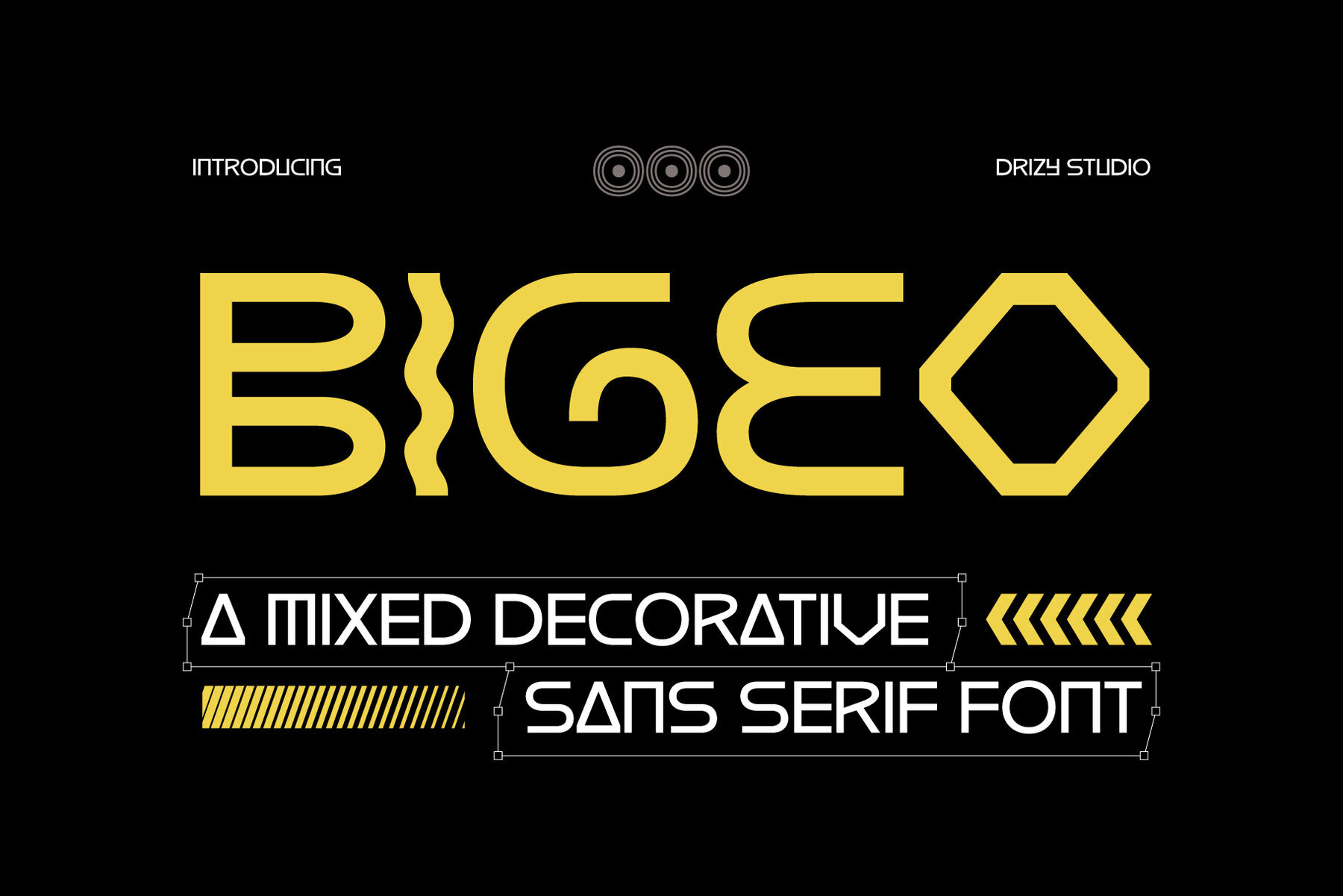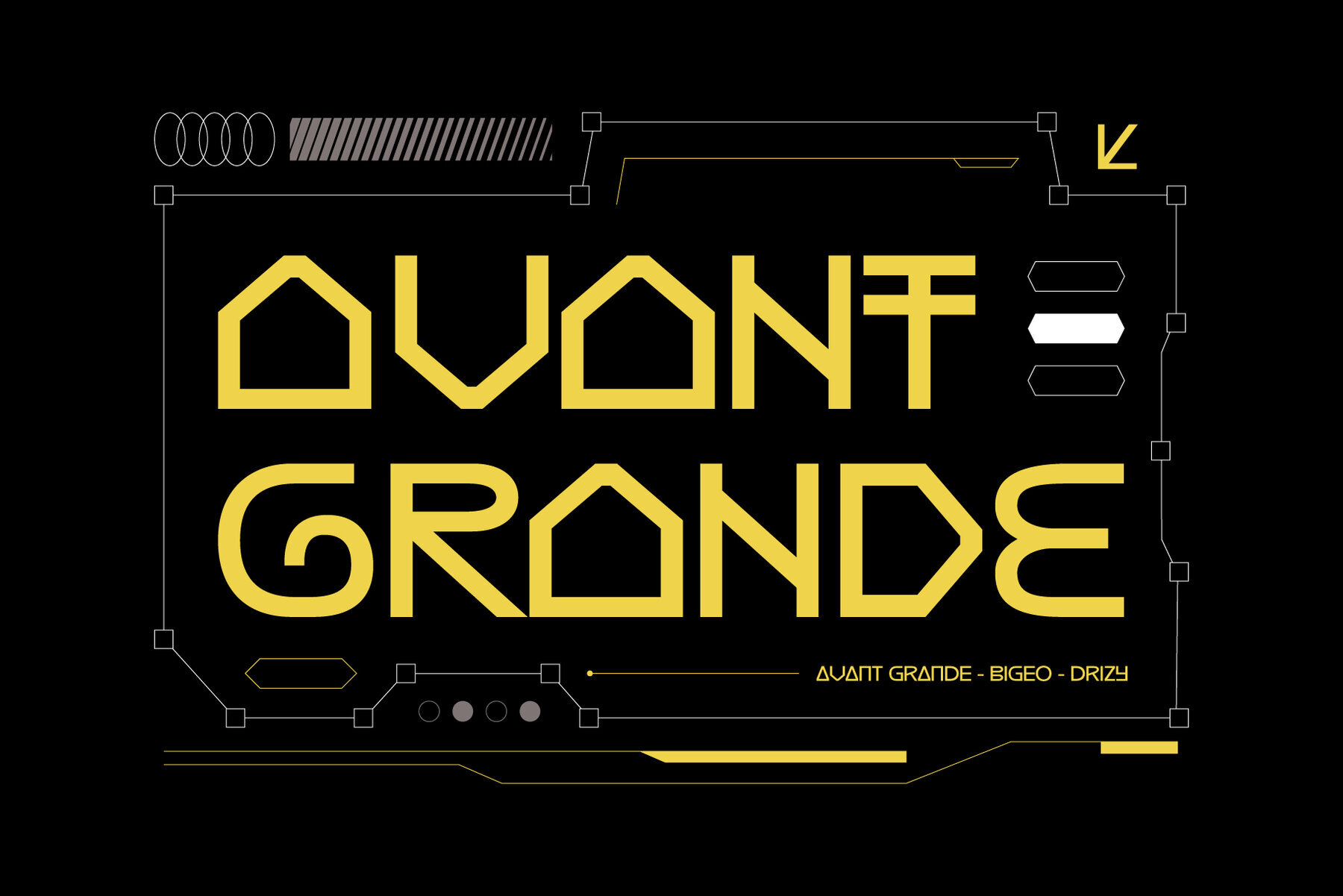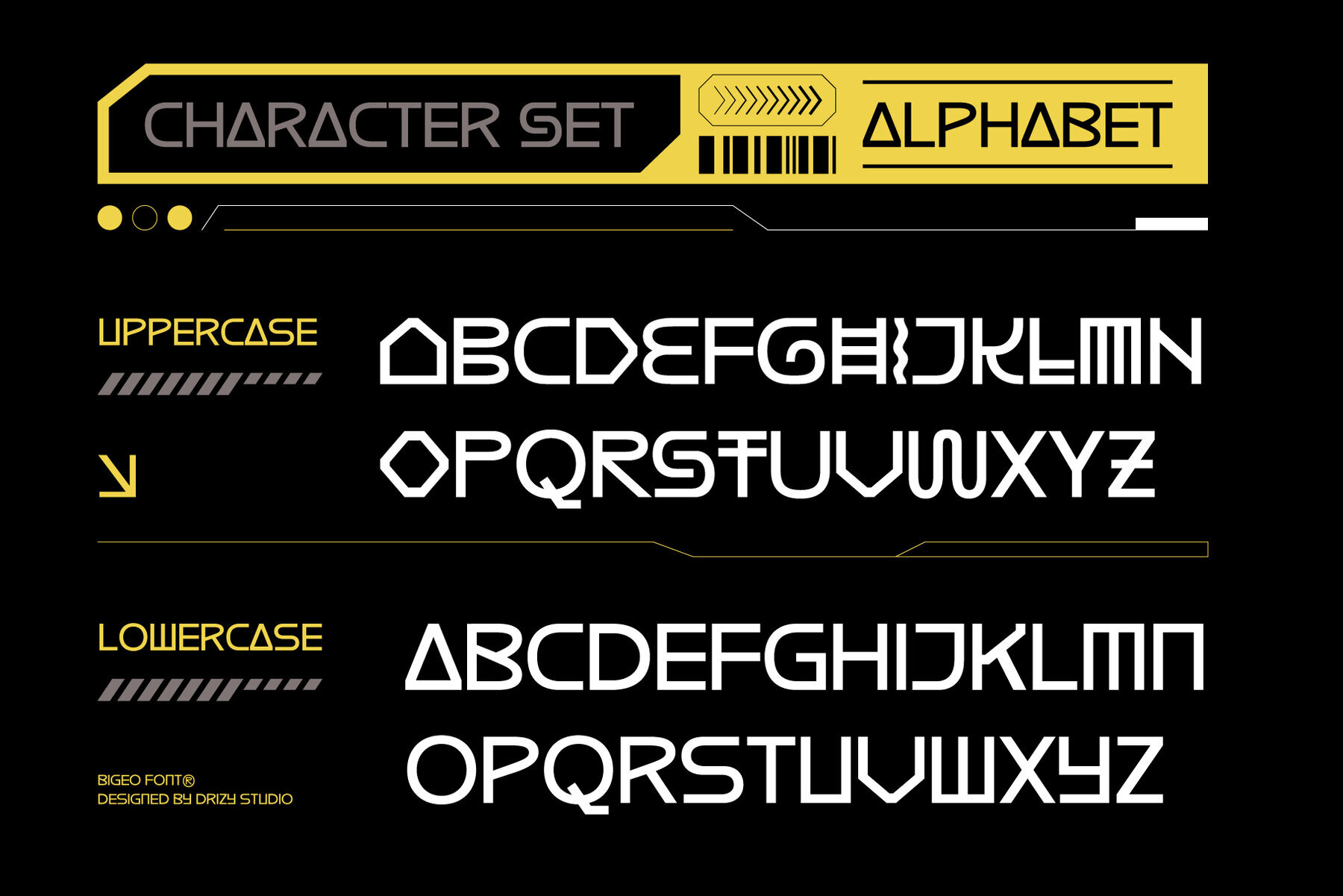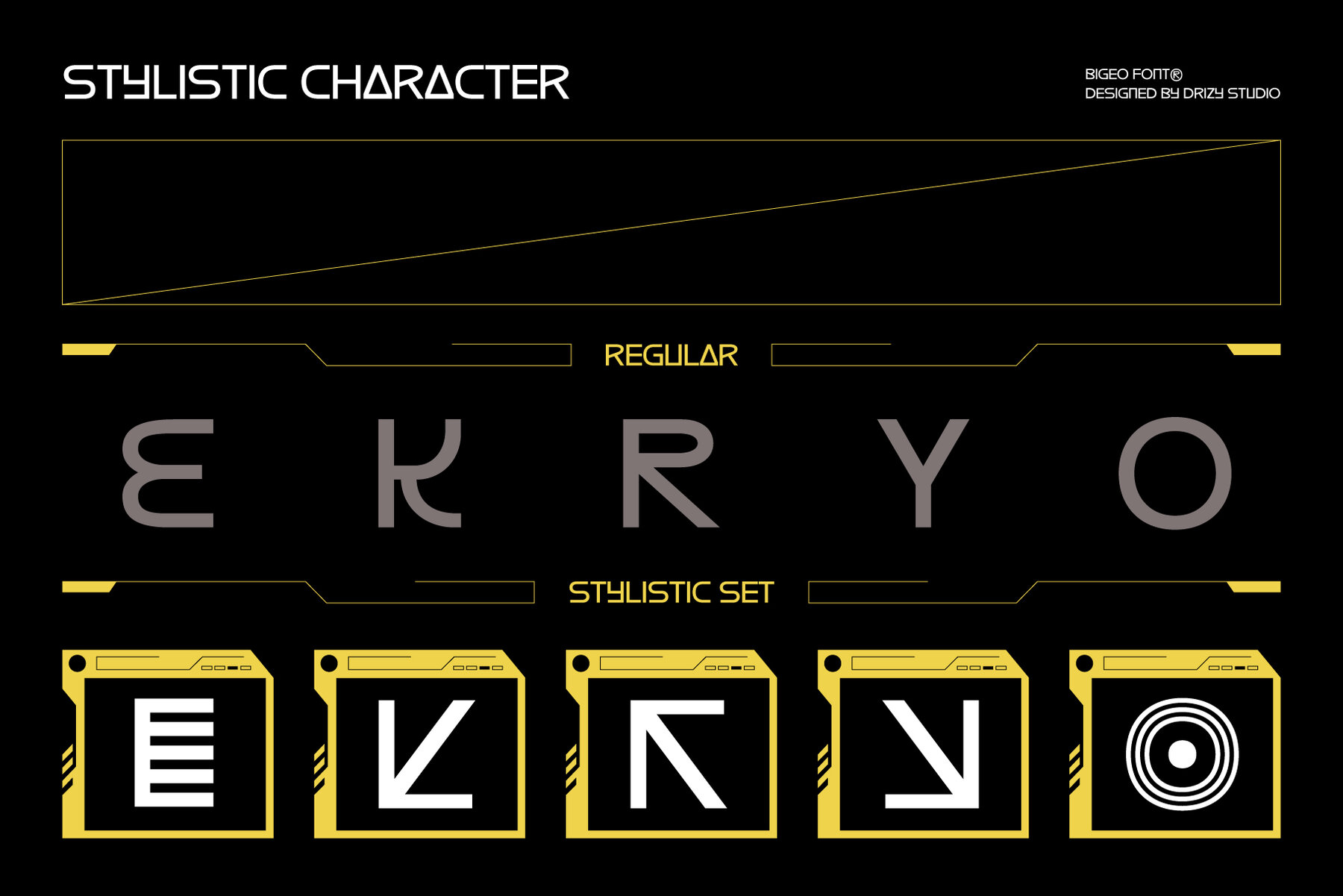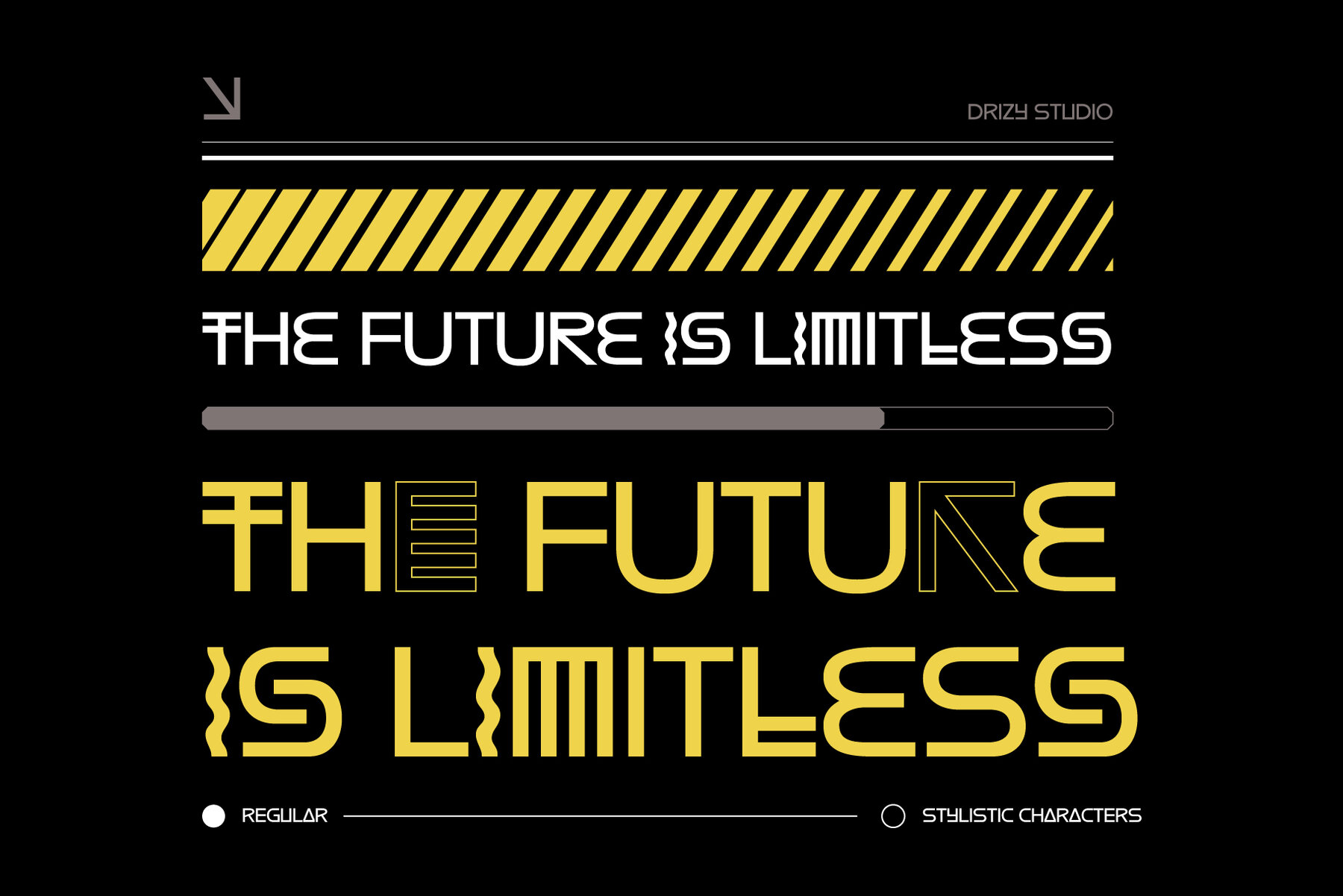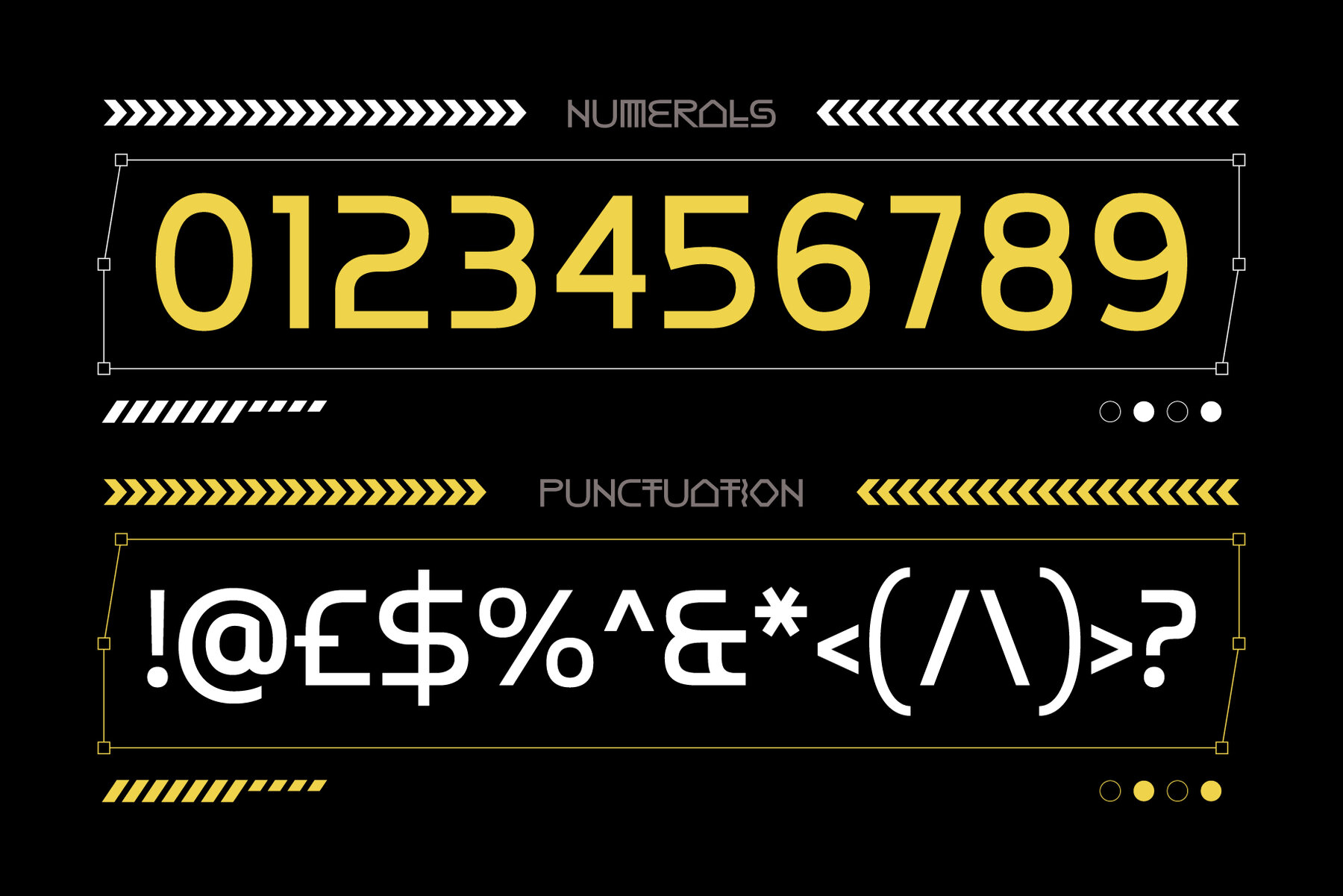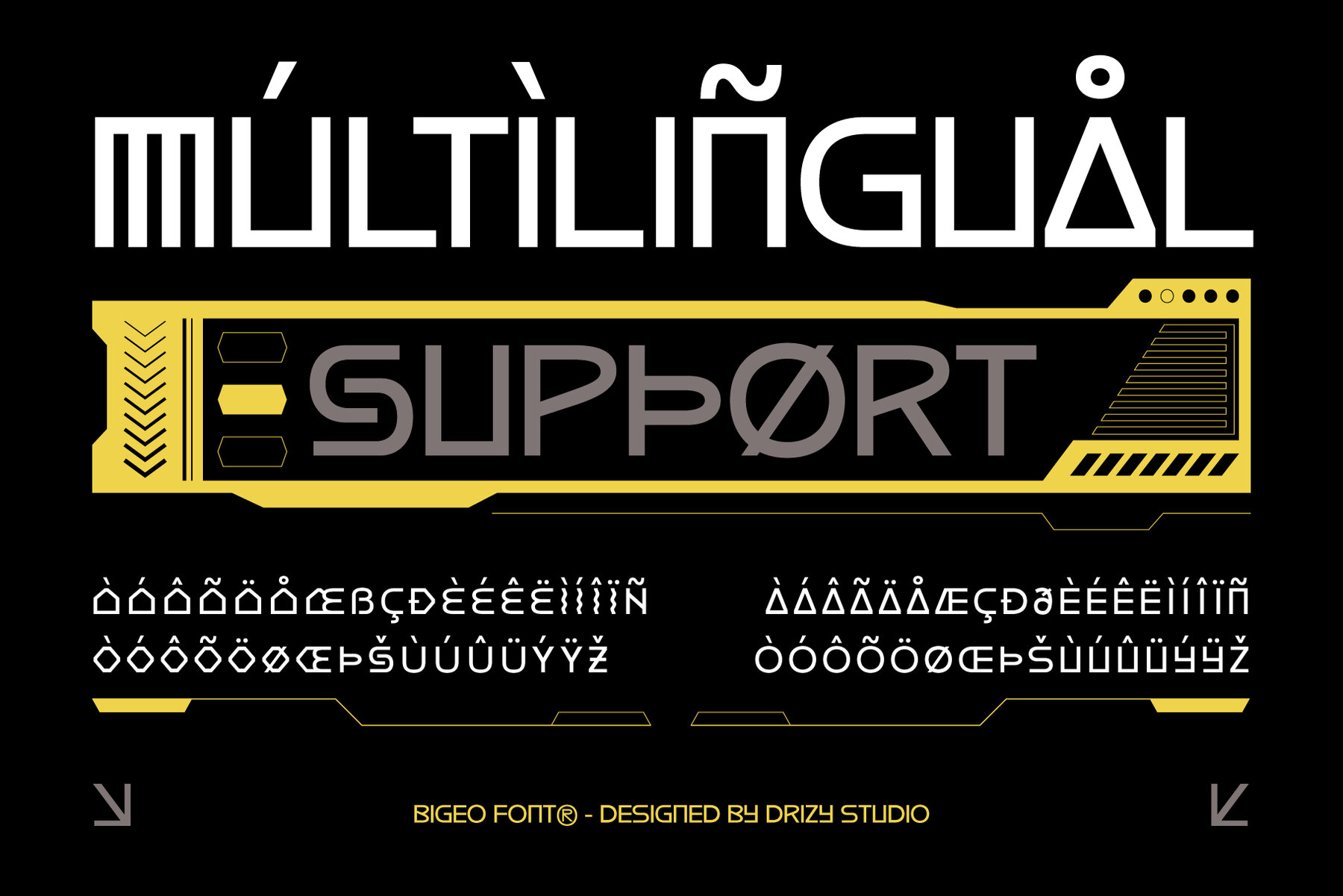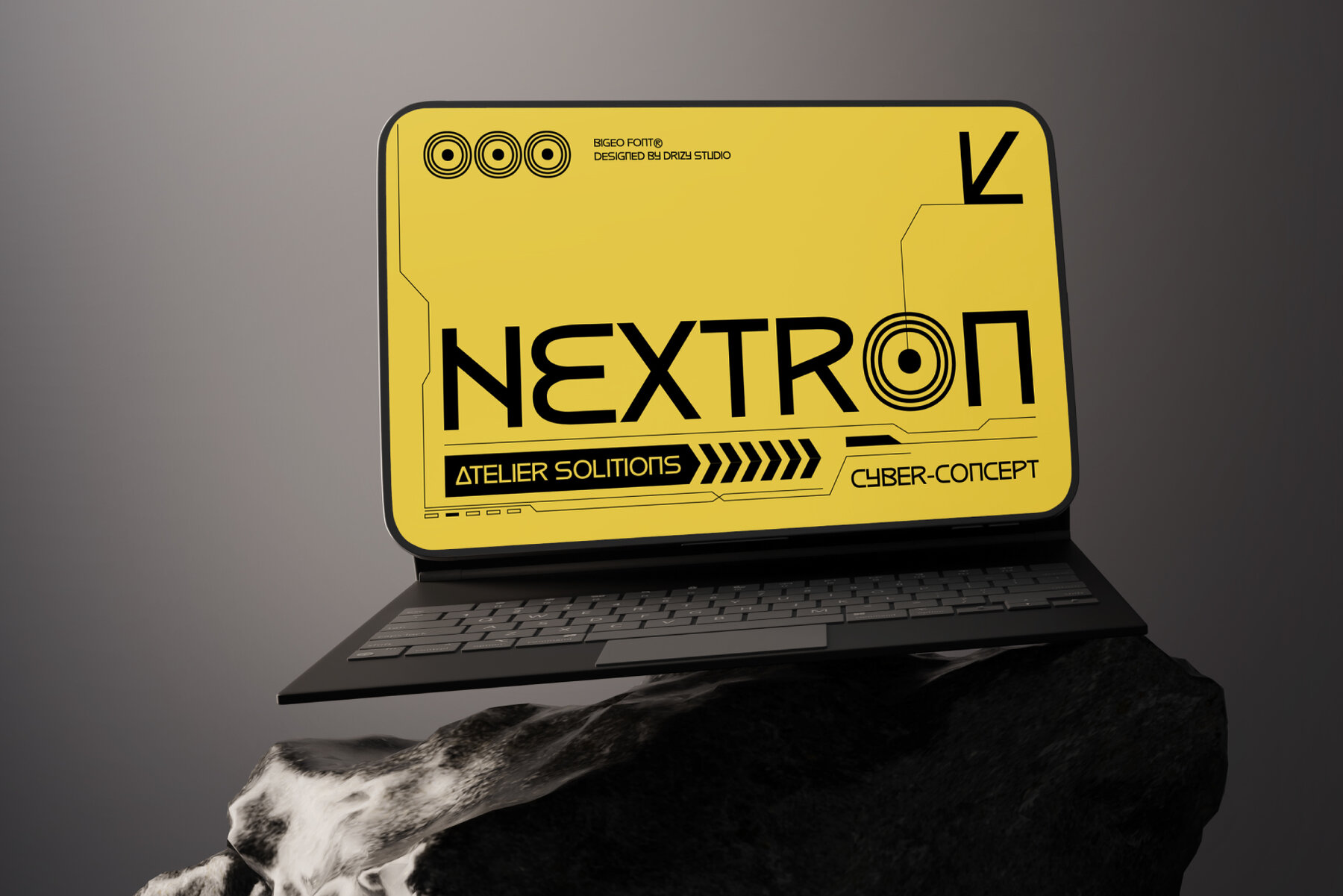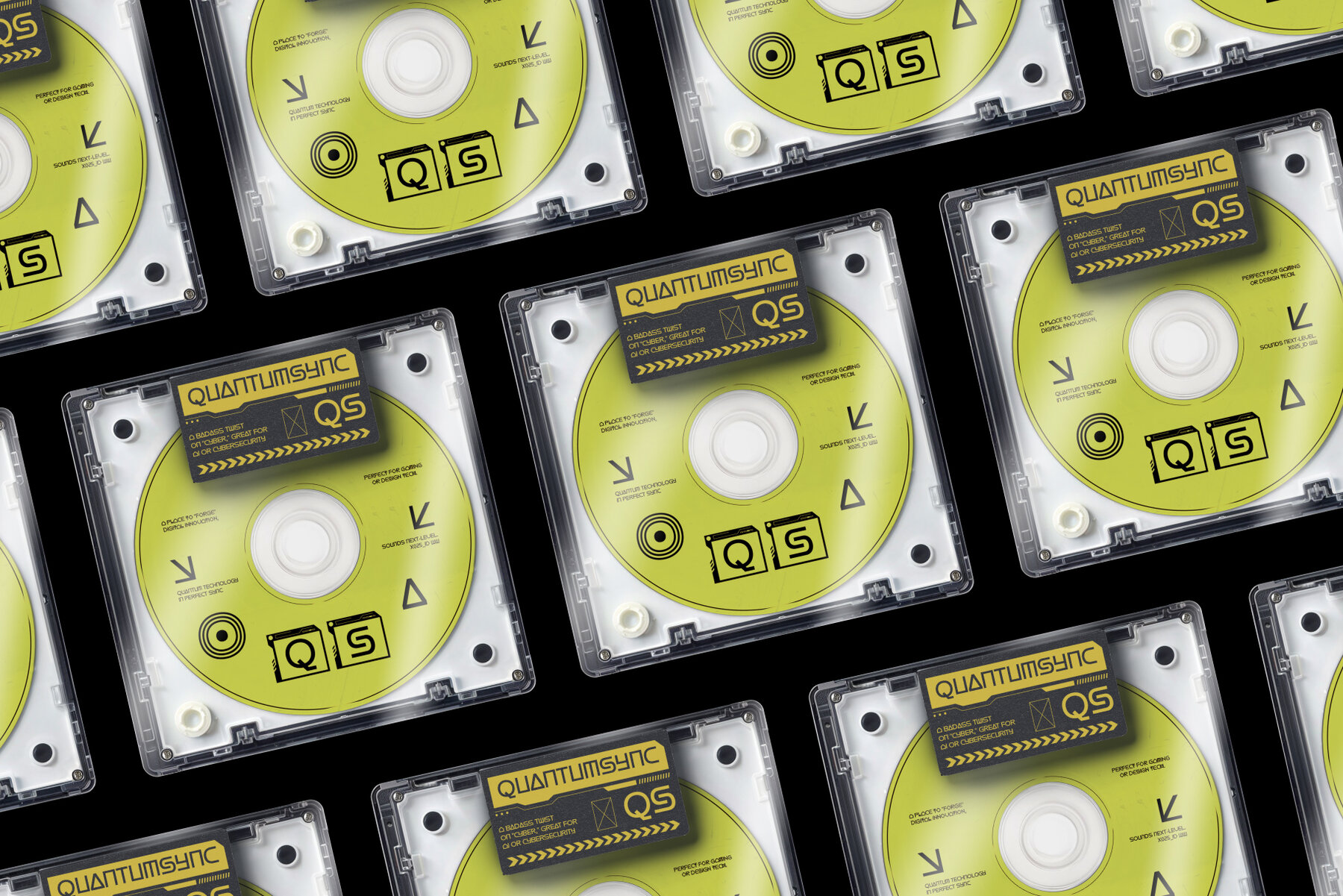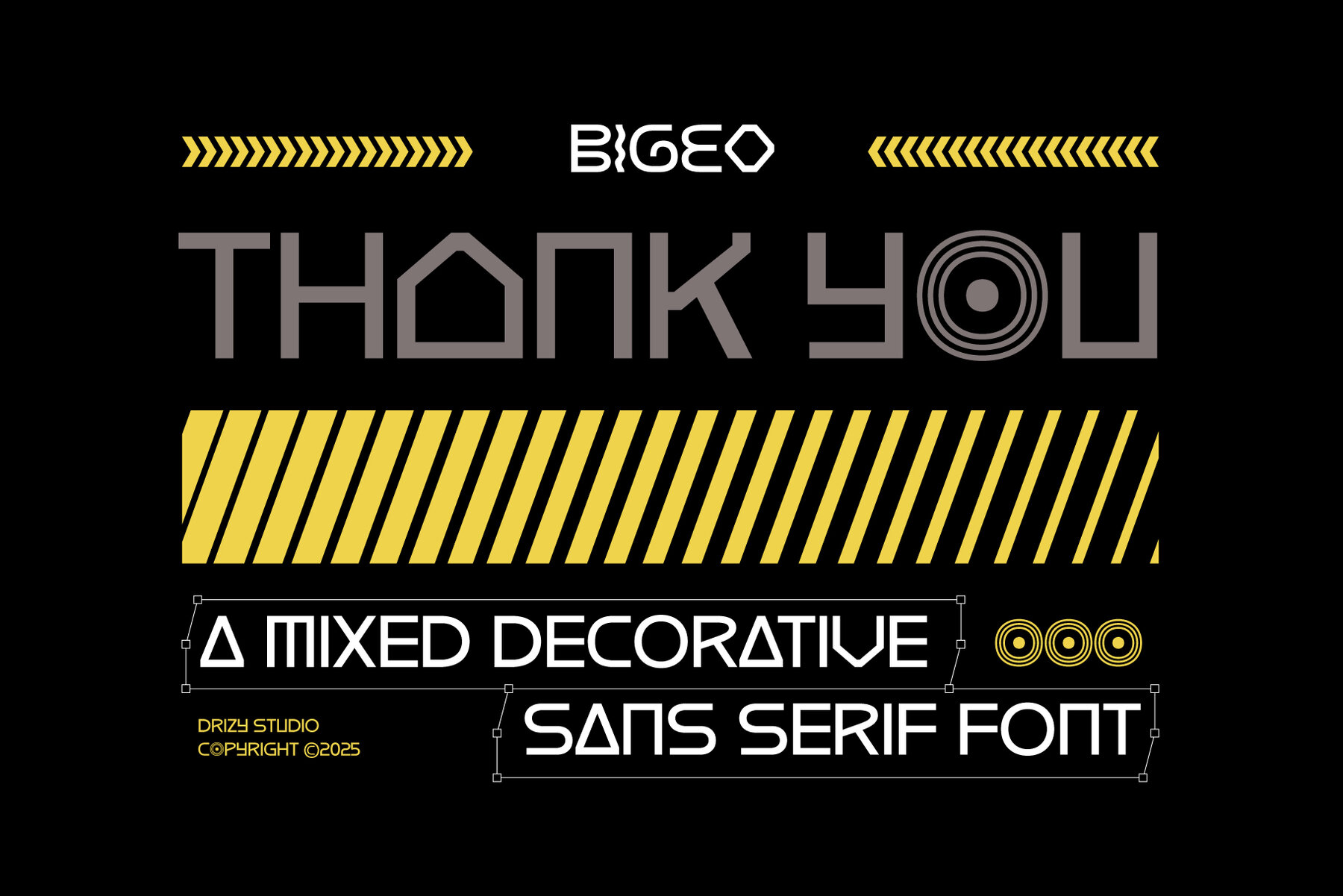
Bigeo Font
Bigeo Regular
Bigeo is a distinct mixed decorative sans serif font, proudly positioned in the Modern Geometric Mixed Font category. This typeface fuses clean, structured lines with playful decorative elements, offering a harmonious blend of sleek professionalism and artistic flair. The geometric shapes of its letters provide a contemporary appeal, while unique details imbue it with a striking individuality, perfect for designs that need a bold yet approachable look.
Key features of Bigeo include all-capital letters (both upper and lowercase), a complete set of punctuation and numerals, multilingual support, and alternates for varied design possibilities. The combination of precision in geometric design and the liberty of artistic expression makes Bigeo both stylish and memorable, enhancing your creative projects with its distinctive visual impact.